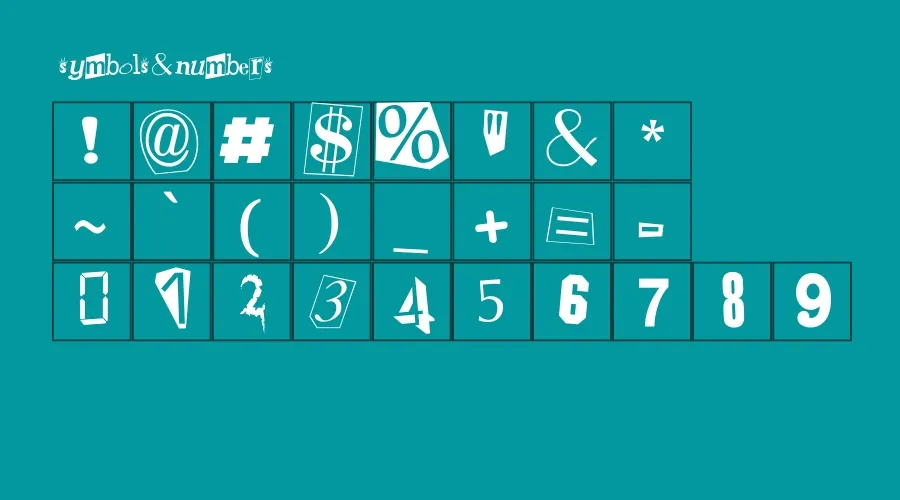
Ransom Note Font
About Ransom Note Font
The Ransom Note Font was developed by Divide by Zero and under the category of the decorative typeface family. It accepts the name of this style from the impression of a stereotypical ransom letter. It has a stylish texture look with unique structures.
The copy-and-paste function of this typeface will help you to make your project easy and modern. You can also utilize its online generator tool for converting all your simple textures into stylish and new modern shapes.
There are several uses for the Ransom Note Font. Both print and digital media, including social media postings, banners, Twitter, Instagram bio descriptions, and many other social media platforms, have used the font.
This font may be utilized in Microsoft office, PowerPoint presentations, and much other software. which features several purposes, and can be utilized for a variety of tasks. Numerous world languages, including Latin, English, Greek, Greenlandic, Guarani, Haitian Creole, and Hausa, are supported.
This typeface can be used for creating signs, symbol designs, email templates, and many other things. It gained popularity in a very short time when it was released in the font world.
The typeface has been widely utilized in print and digital media Several internet programs can be used to produce this font. Additionally, you may use this typeface for birthday cards, postcards, and marriage cards.
This outstanding typeface can be paired with numerous typefaces such as;
With Exo Font: As a designer, you should have to choose the right font for your projects, so It has great pairing quality with different fonts. It is the perfect choice for all your tasks.
Pairing with Open Sans Font: It is a unique decorative font and is similar to this font but has a more regular feel. It has outstanding pairing quality.
Pairing with Nobile Font: This amazing font is the perfect choice for pairing with Nobile Font. It can be utilized for making YouTube thumbnails, Instagram bio descriptions, and many more.
What is Ransom Note Font used for?
The Ransom Note style usually utilizes for card designs, email templates, Instagram bio descriptions, social media marketing, logo design, and many other projects.
Is Ransom Note Font a good font?
Yes! It is a good and beautiful font with a special texture look impression. You must have to use it on your projects.
What font is similar to Ransom Note Font?
This typeface is similar to the Addison circus font. This typeface is suitable for cloth printing, wedding cards, business cards, and many other purposes.